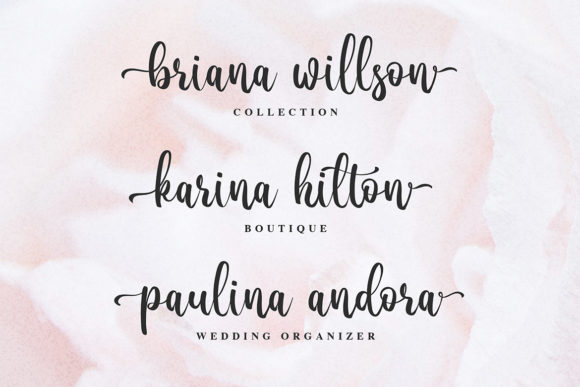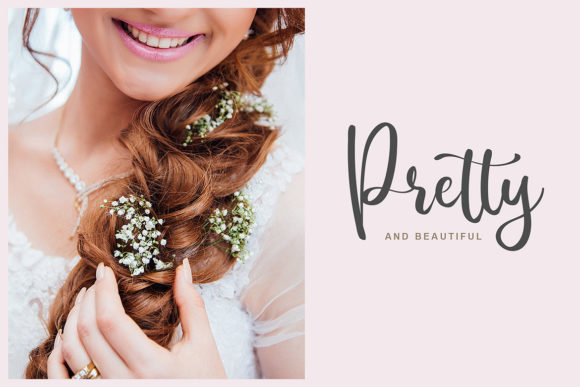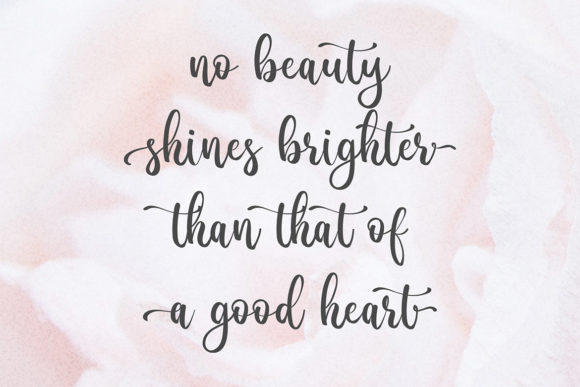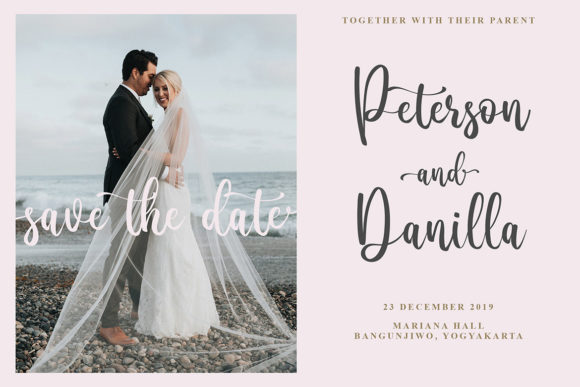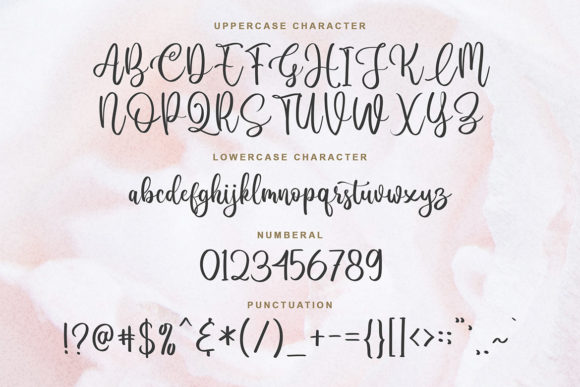
Lovely Blooms Font
About Lovely Blooms Font
Lovely Blooms is an elegant calligraphy script font.
Fall in love with its authentic feel and use it to create gorgeous wedding invitations, beautiful stationary art, eye-catching social media posts, and cute greeting cards.